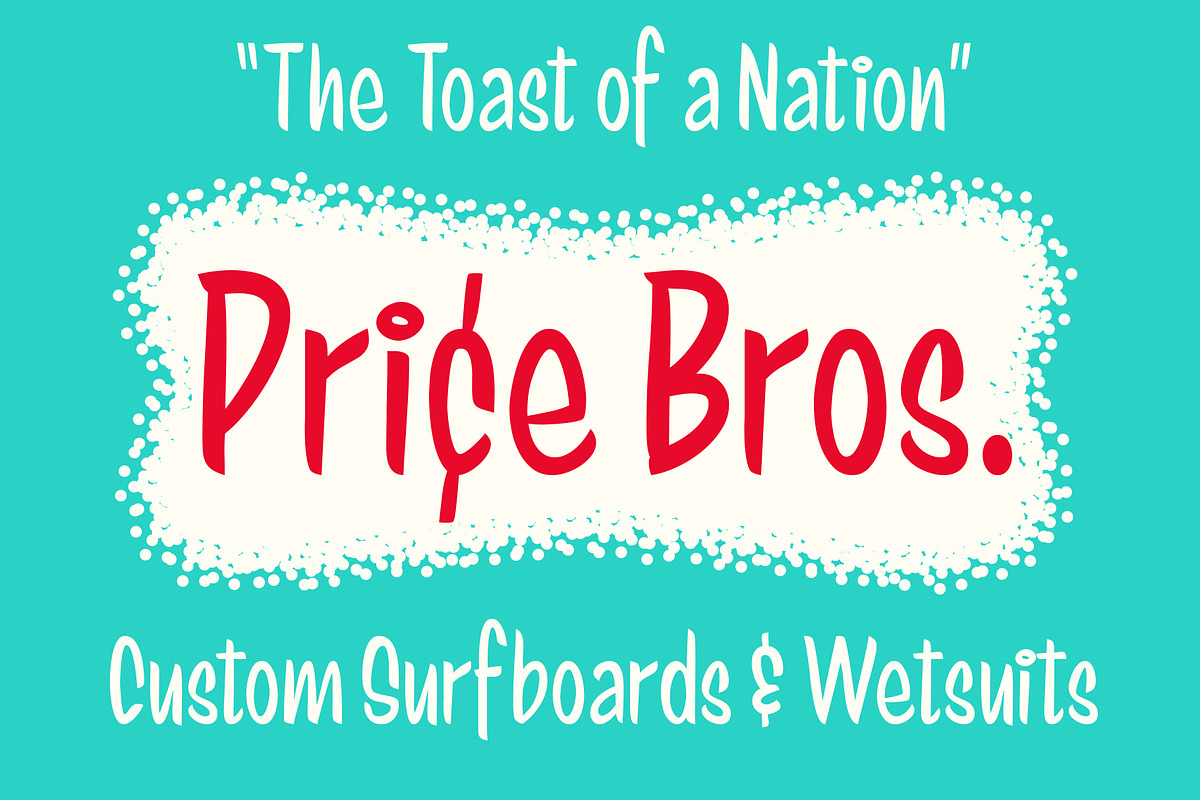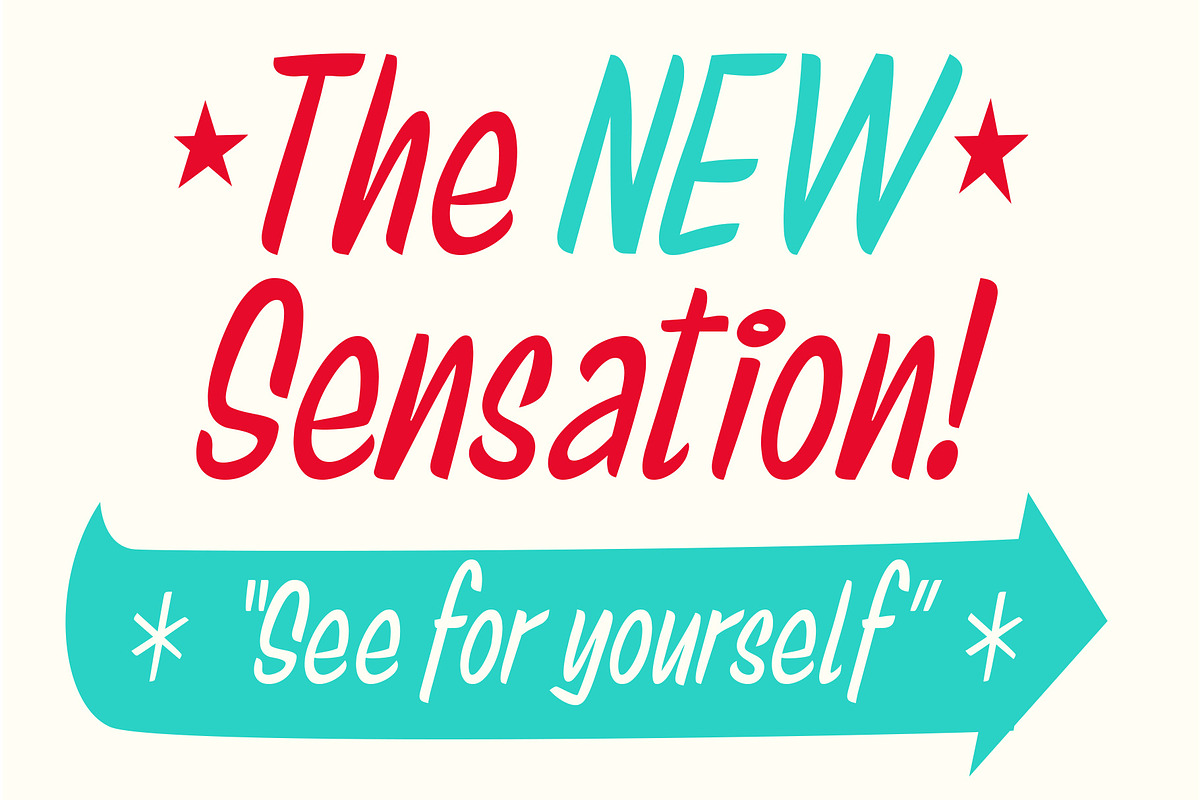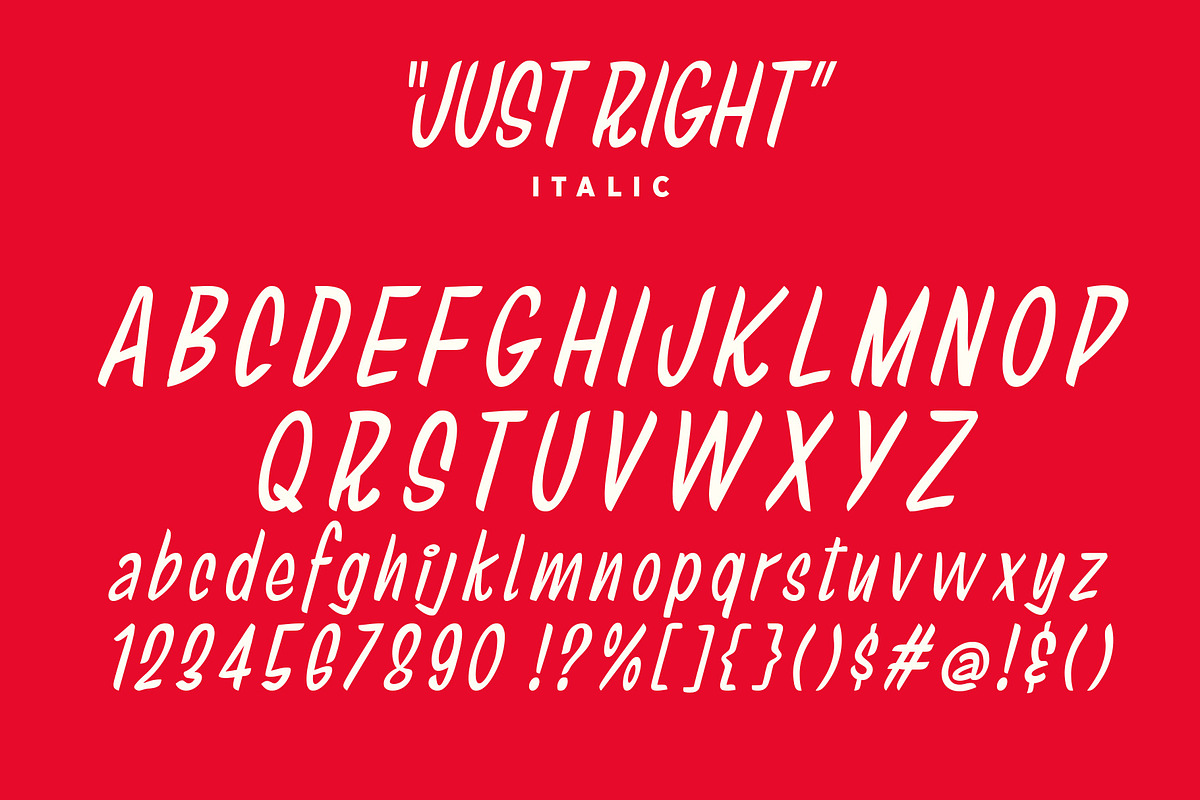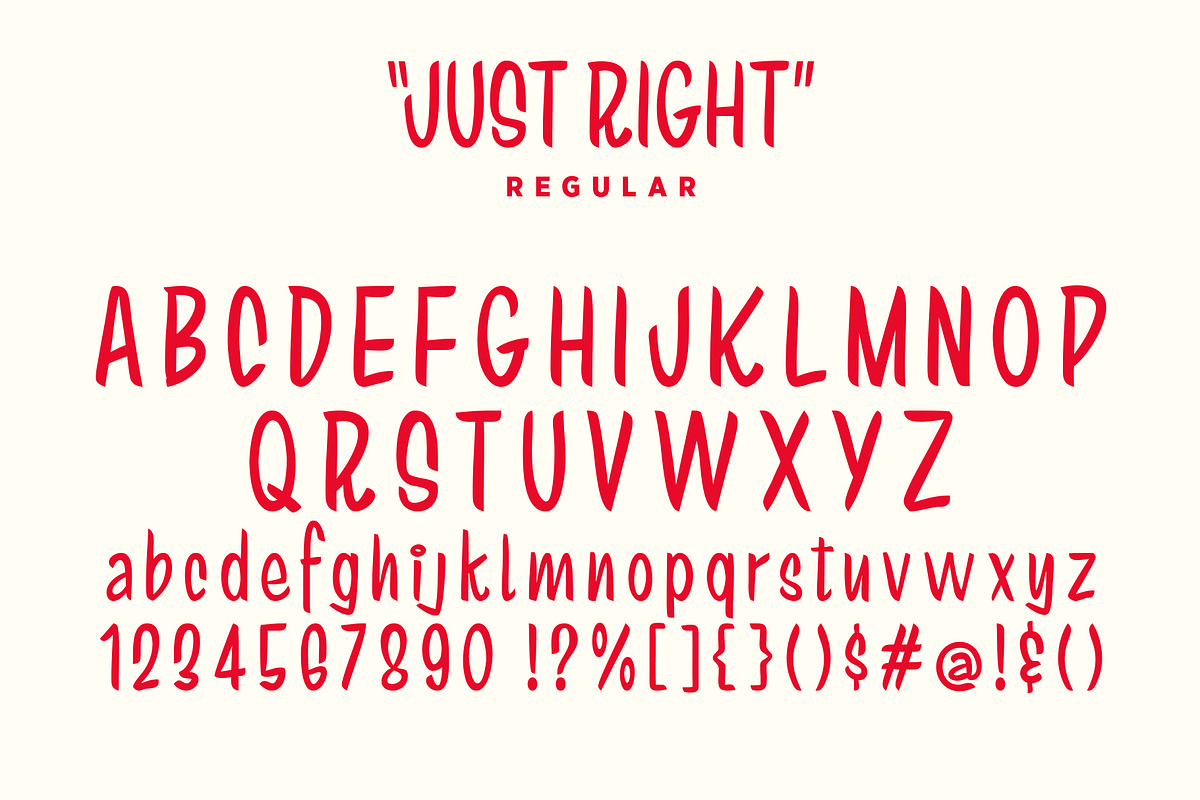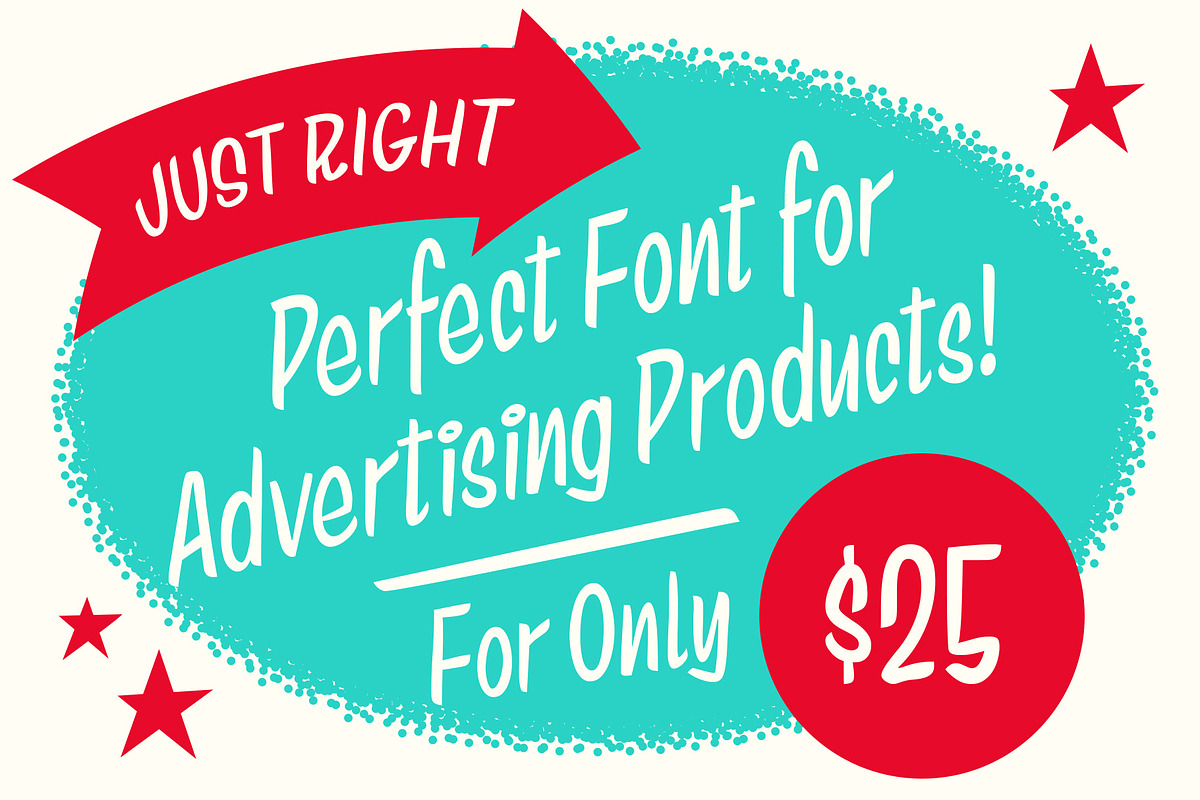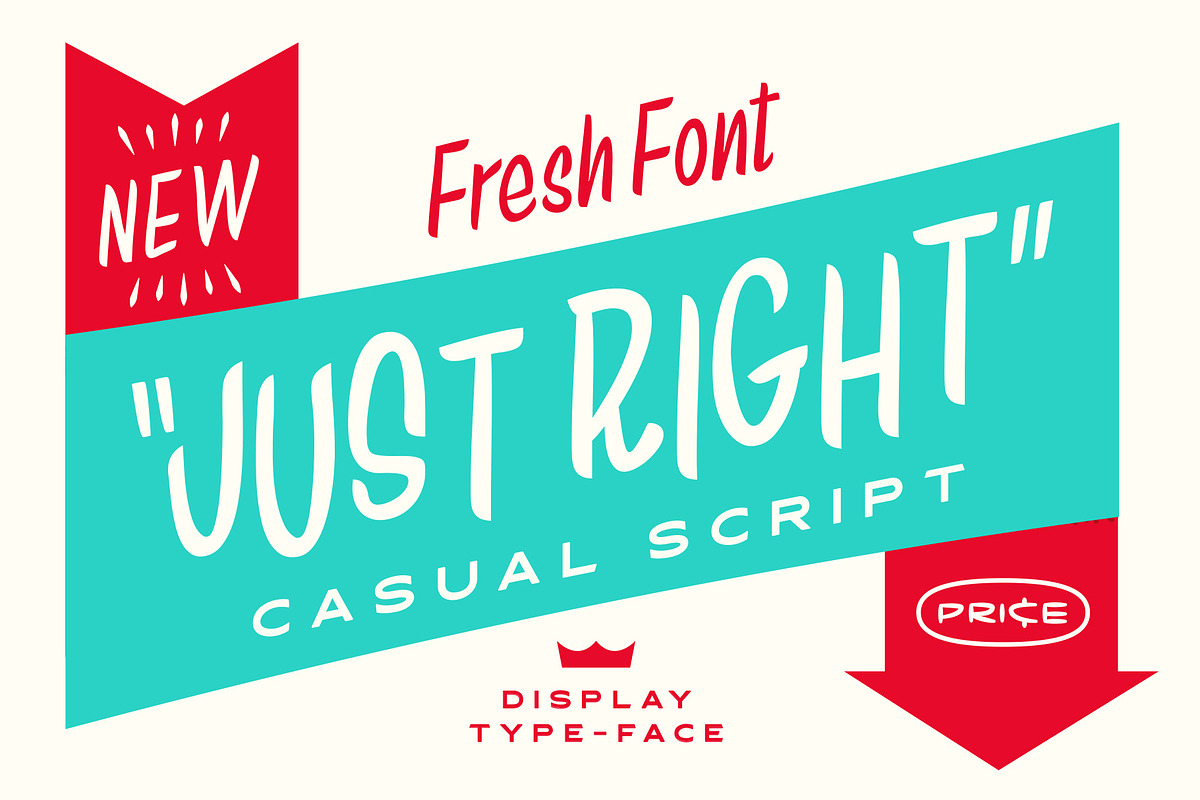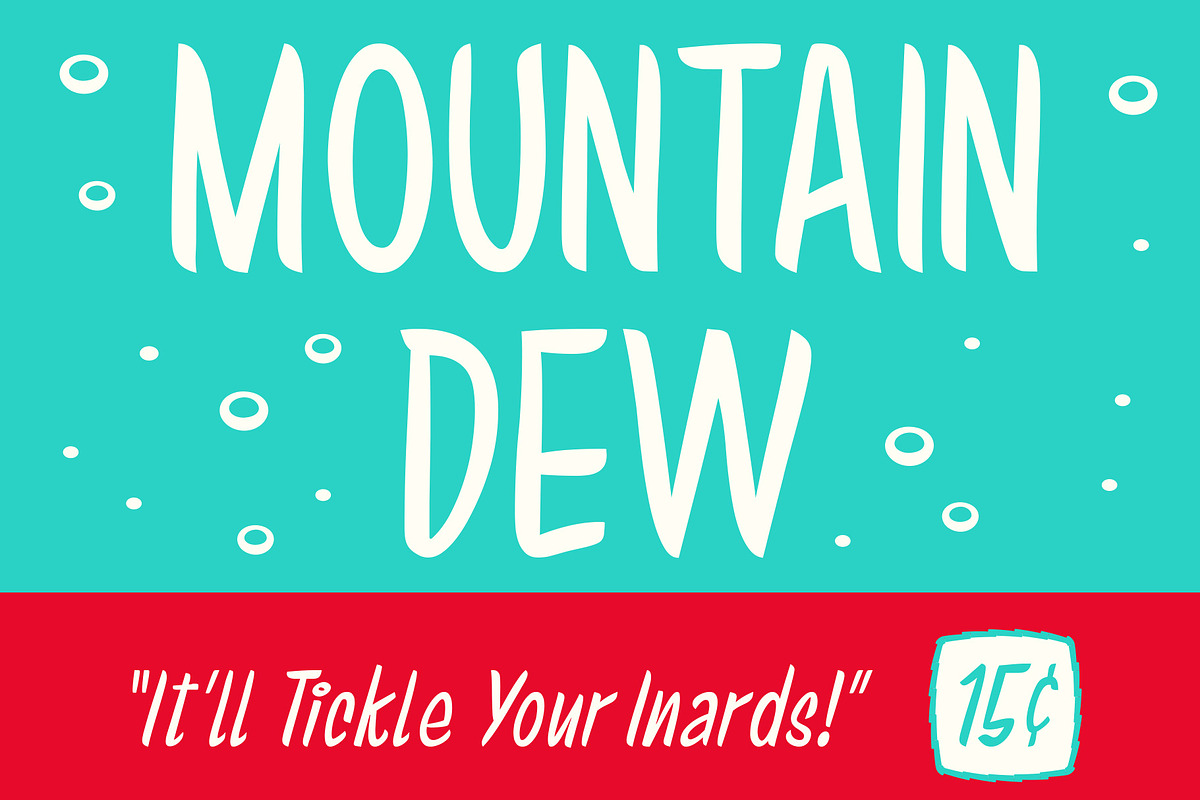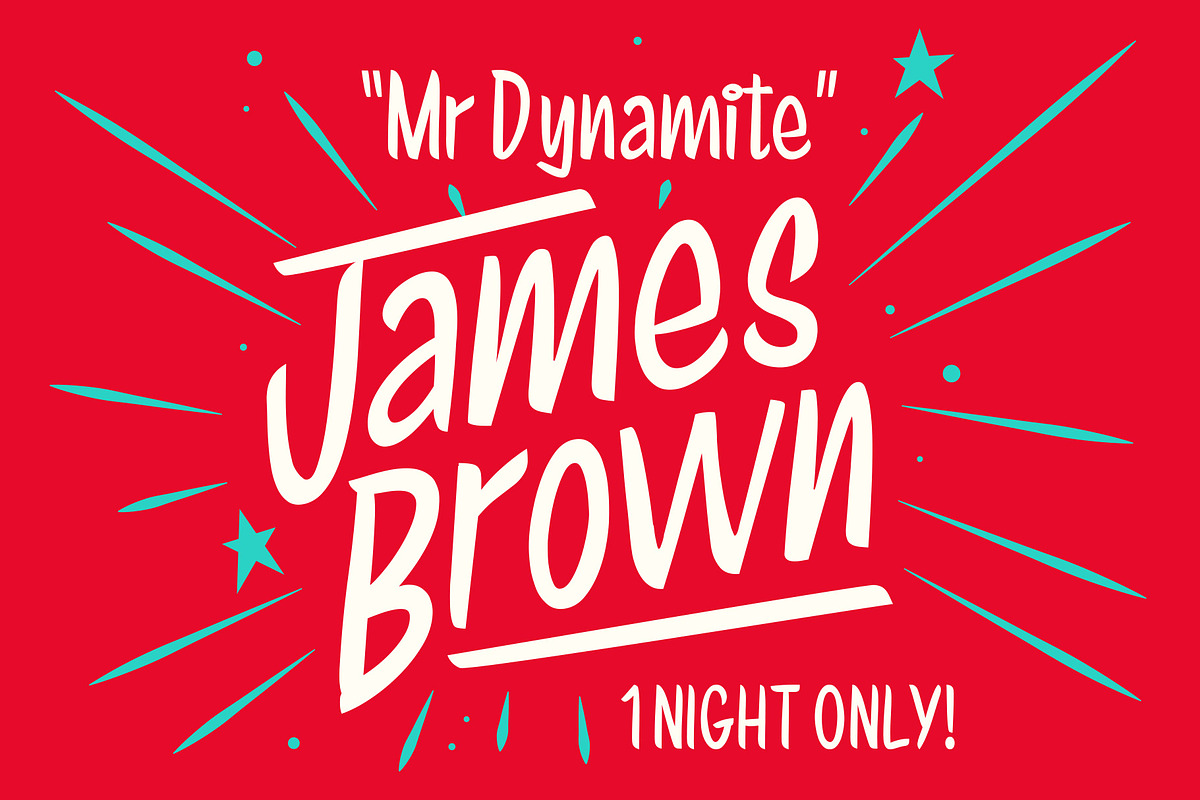
Just Right Casual Script
JUST RIGHT is a display font created by Australian Illustrator Travis Price. Inspired by 1950’s advertising - Just Right Casual Script is the perfect choice if you’re looking to add some cool retro vibes to your work.